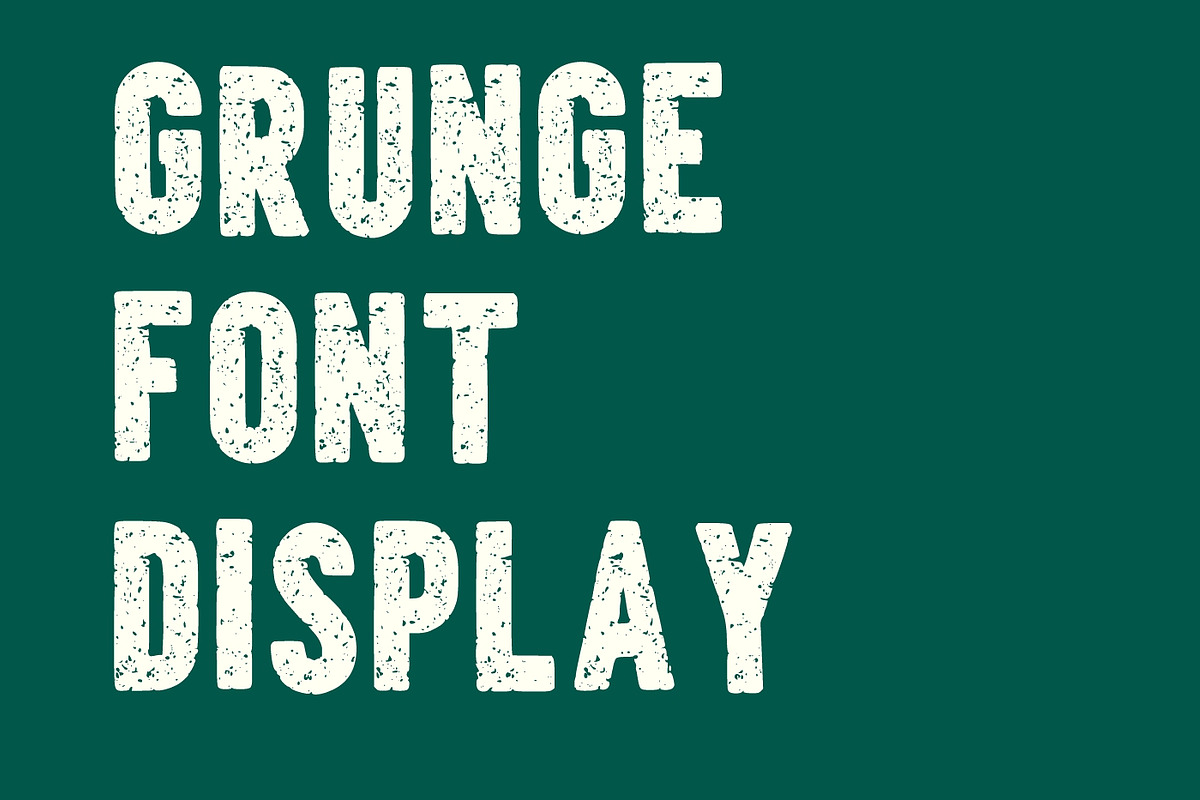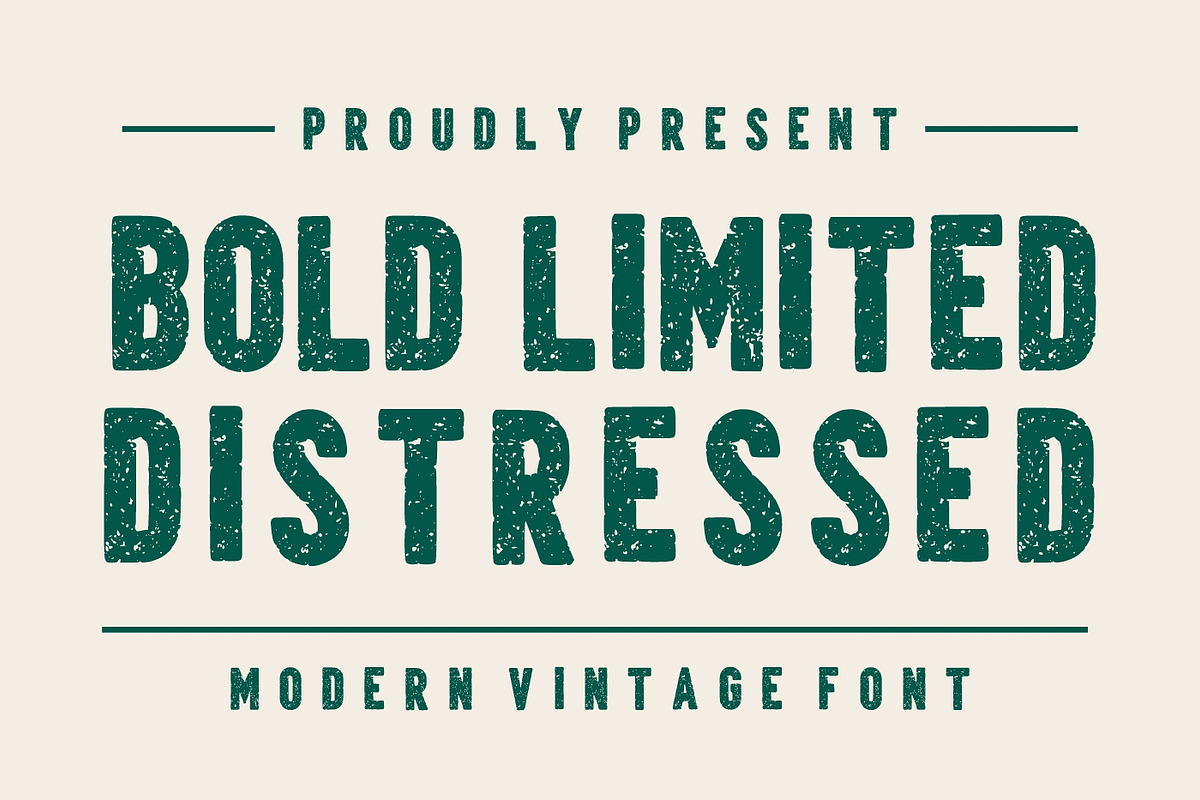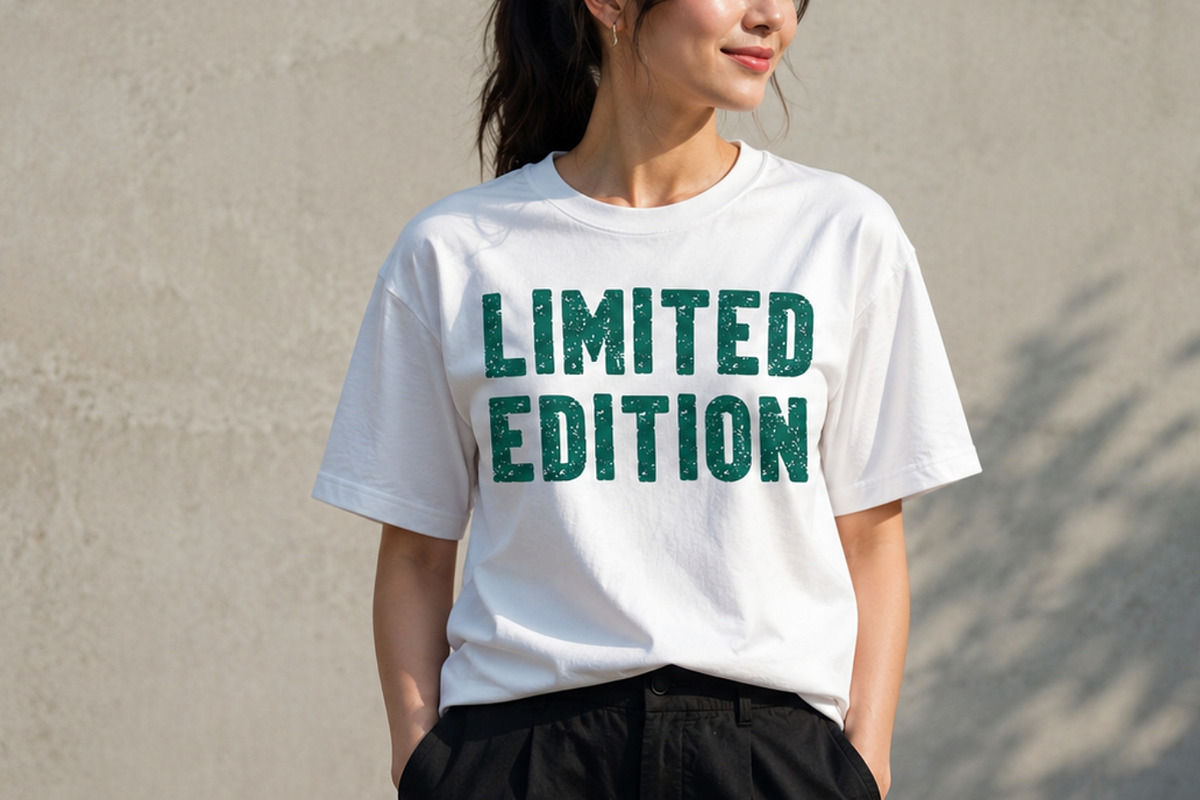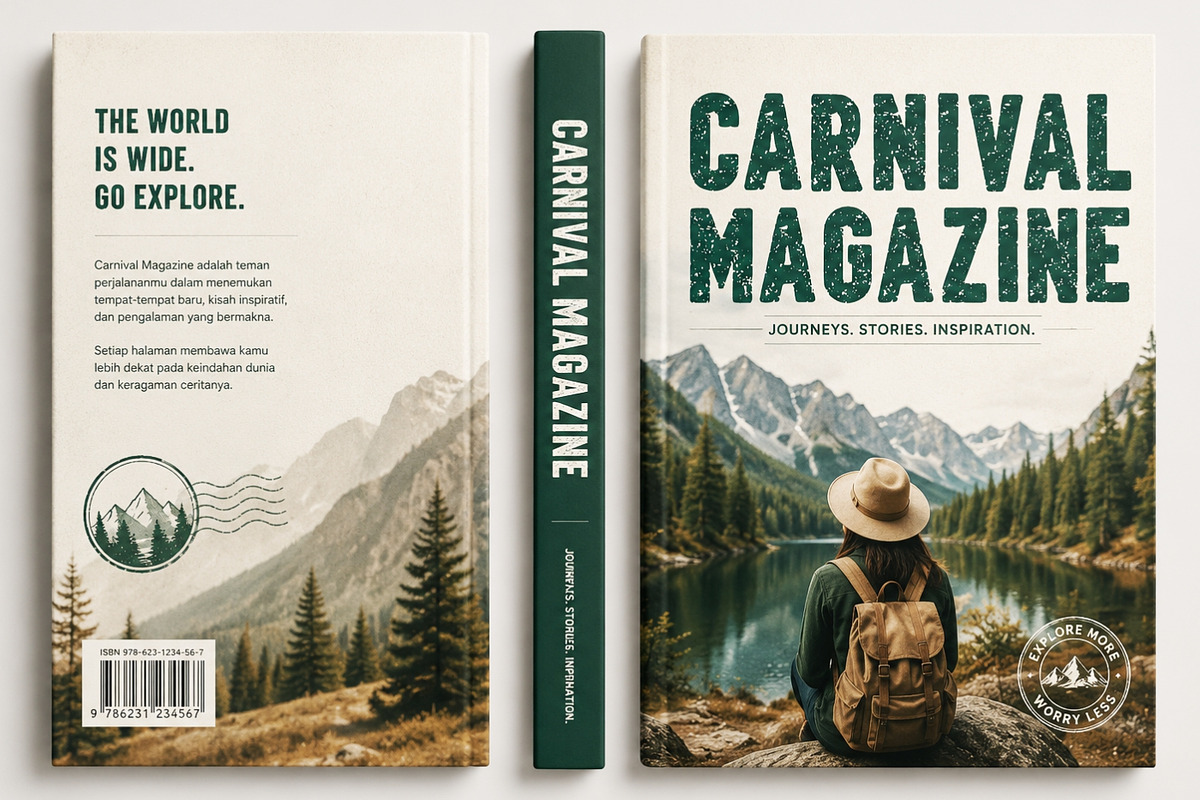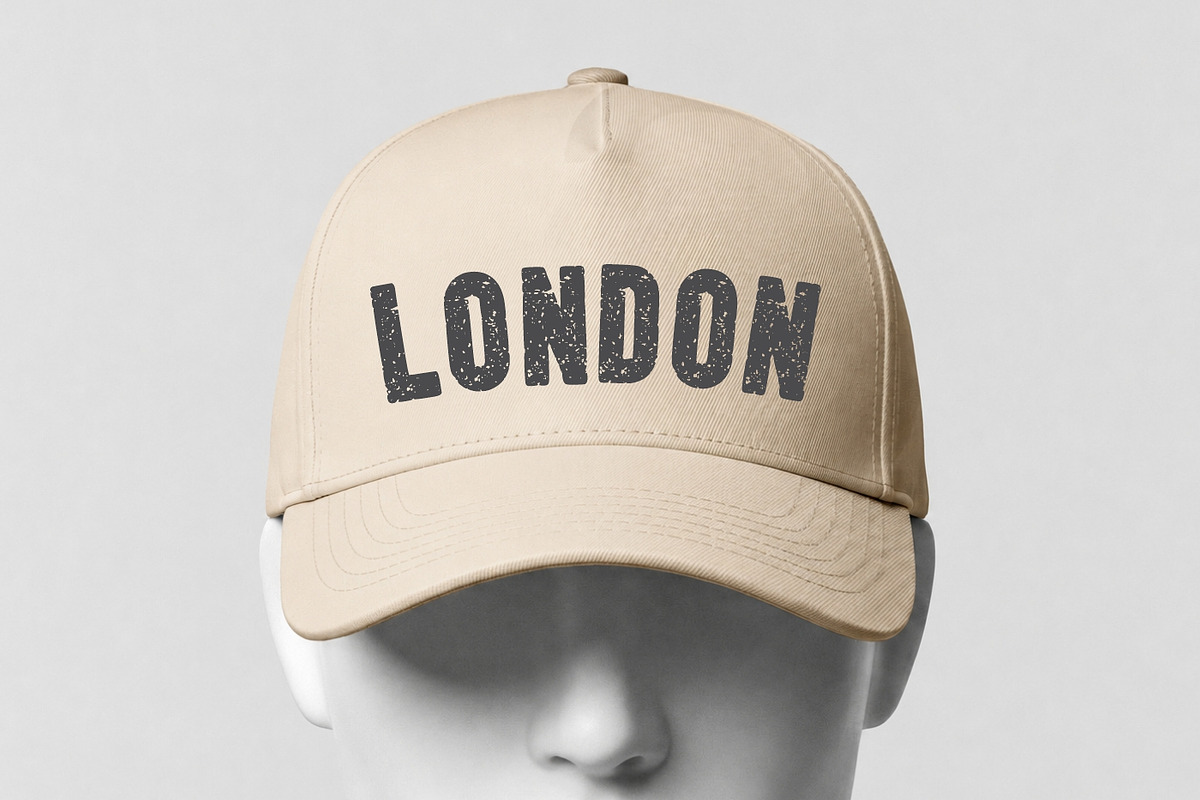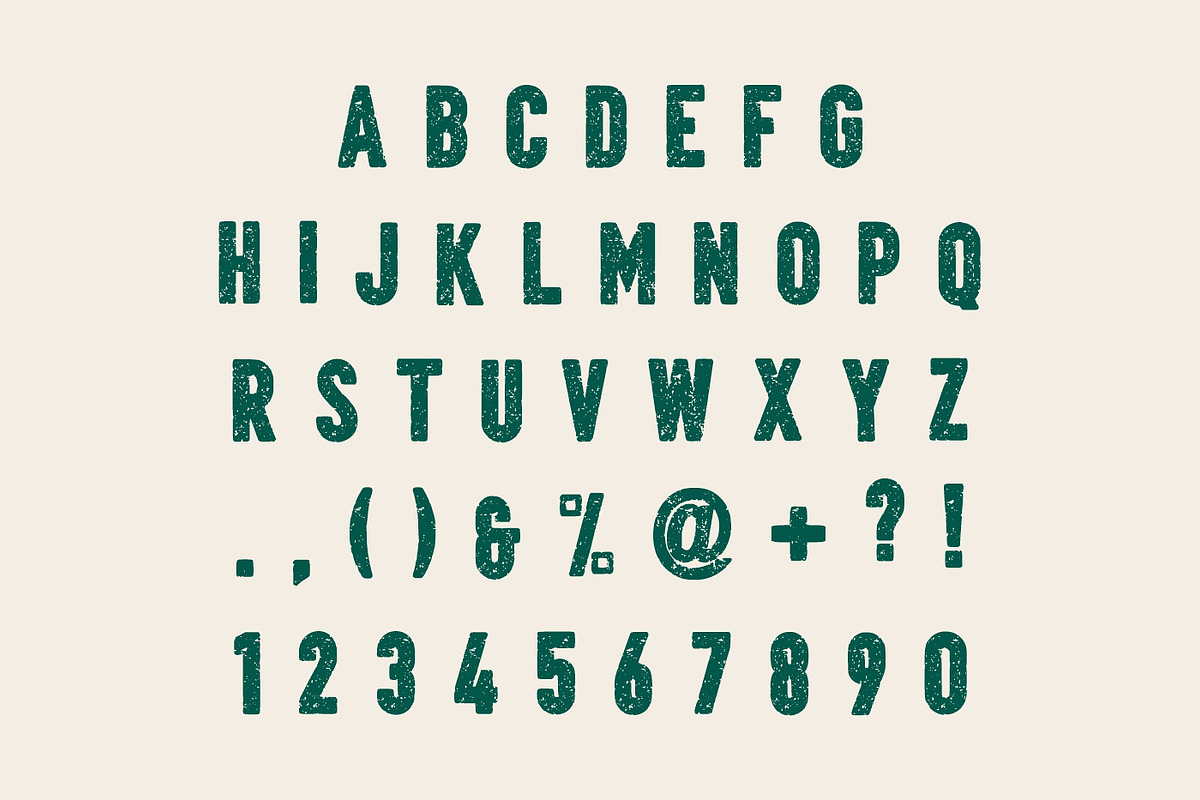
Bold Limited Distressed
Bold Limited Distressed is a powerful modern vintage display font that combines bold condensed letterforms with authentic distressed textures. Designed to create strong visual impact, this font delivers the perfect balance between contemporary design and rugged vintage character. The weathered texture adds depth and personality, making every word feel bold, authentic, and memorable.
Inspired by classic industrial signage, vintage advertising posters, retro branding, and worn print textures, Bold Limited Distressed is ideal for designers looking to create eye-catching projects with a professional yet rustic aesthetic. The condensed structure allows for strong headlines while maintaining excellent readability across both print and digital media.
Whether you’re creating logos, t-shirt graphics, product packaging, posters, branding materials, merchandise, social media graphics, or promotional campaigns, this font brings a timeless vintage appeal that stands out from ordinary typography. The distressed details add an authentic handcrafted feel, making it especially suitable for outdoor brands, adventure themes, automotive graphics, sports branding, and retro-inspired designs.
Bold Limited Distressed works beautifully in large titles, logo designs, apparel graphics, labels, signage, and advertising materials. Its bold construction ensures visibility, while the textured finish creates a unique vintage atmosphere that instantly captures attention.
Add strength, character, and vintage authenticity to your next project with Bold Limited Distressed, a versatile display font crafted for impactful branding and standout typography.